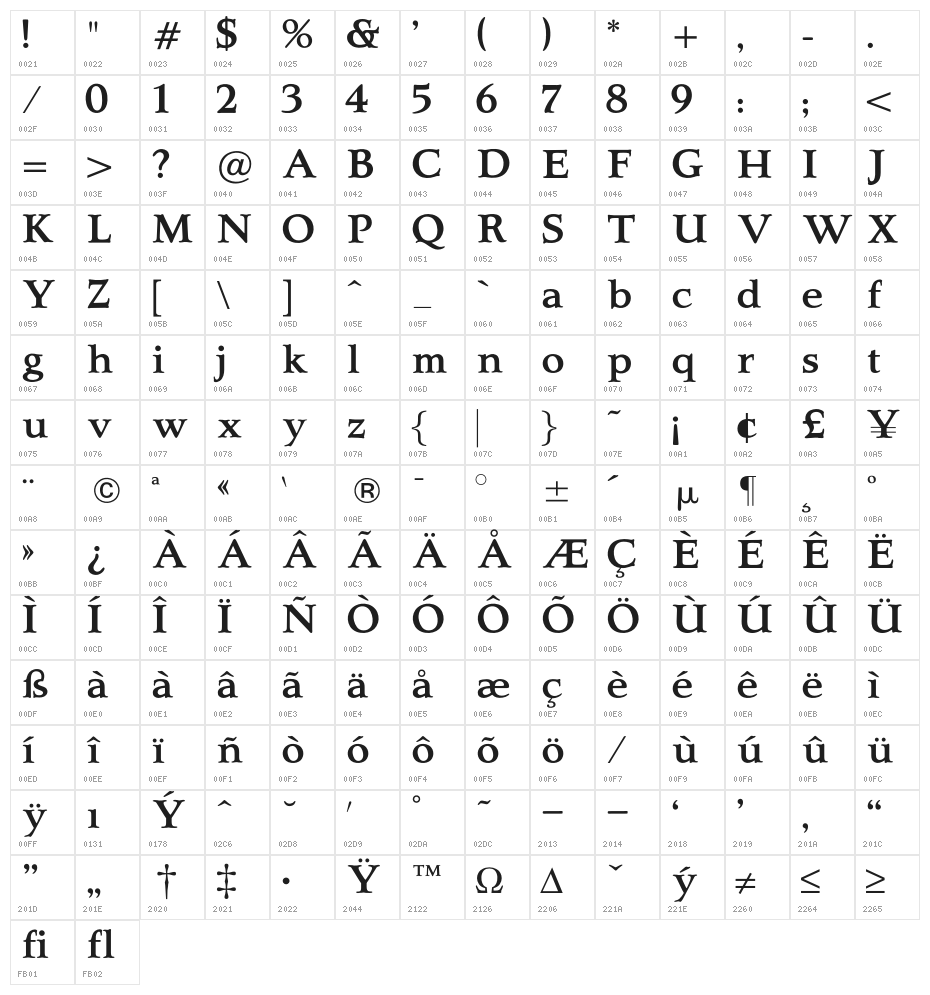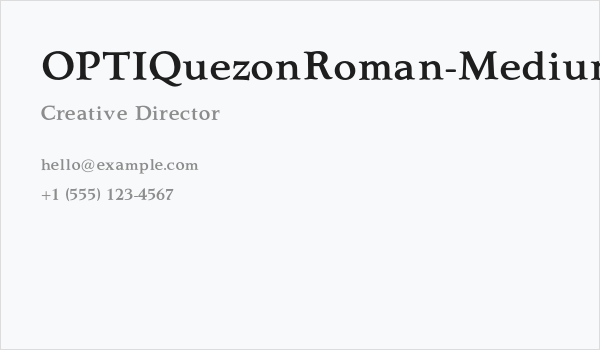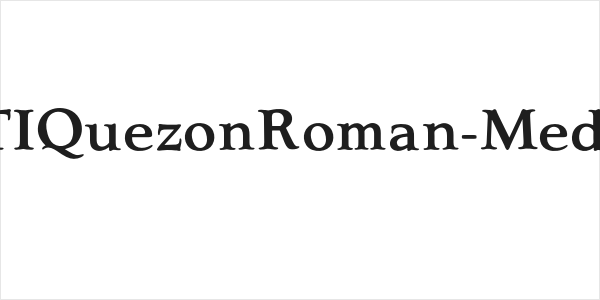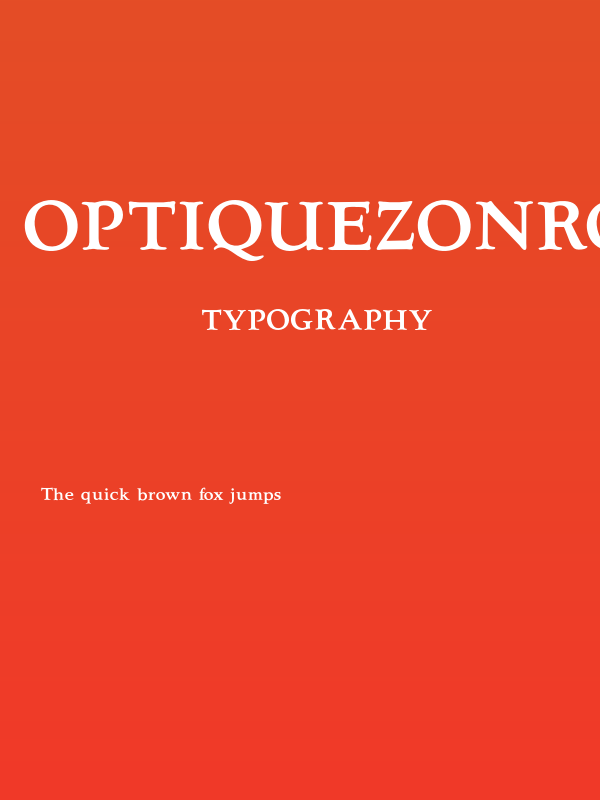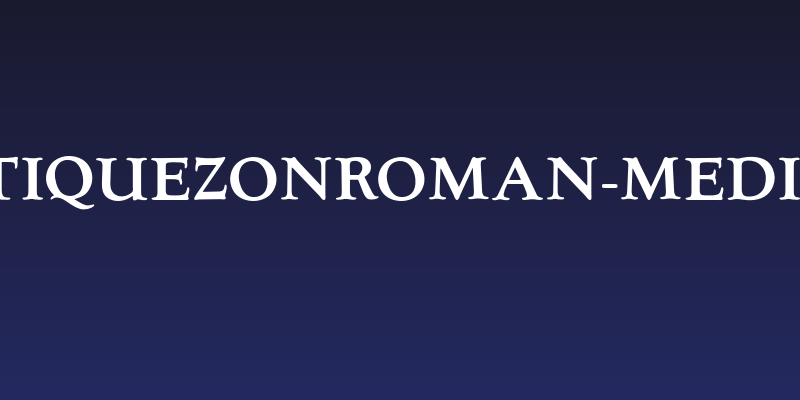
OPTIQuezonRoman-Medium Font
This font features a classic serif style with a medium weight, offering a balanced and readable appearance. The characters exhibit a traditional elegance with slightly flared serifs that add a touch of sophistication. The uppercase letters are bold and commanding, while the lowercase letters maintain a consistent and harmonious flow. The numerals are clear and distinct, making them suitable for both formal and informal settings. Special characters are well-defined, ensuring versatility across various applications. The overall design is timeless, making it an excellent choice for projects that require a touch of classic refinement.
| Proposed Projects | Ideal for book covers, editorial design, formal invitations, and branding materials. |